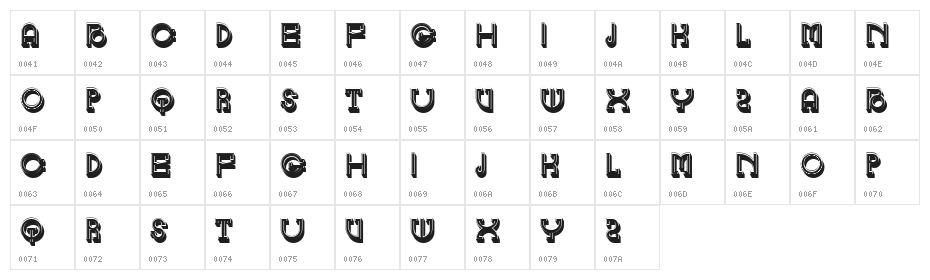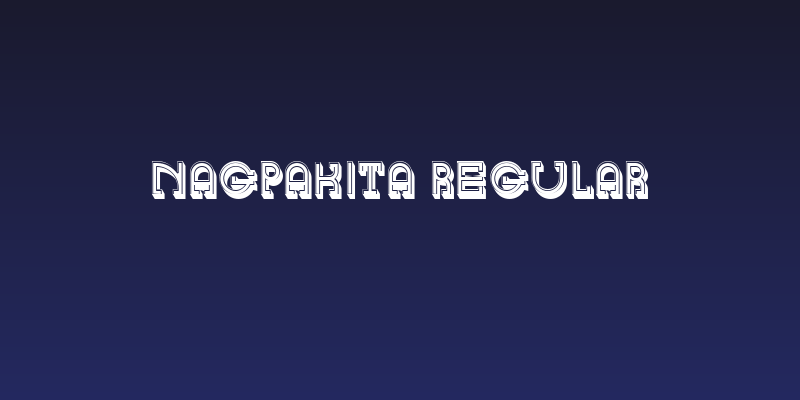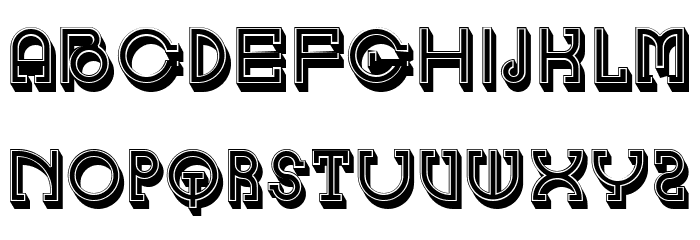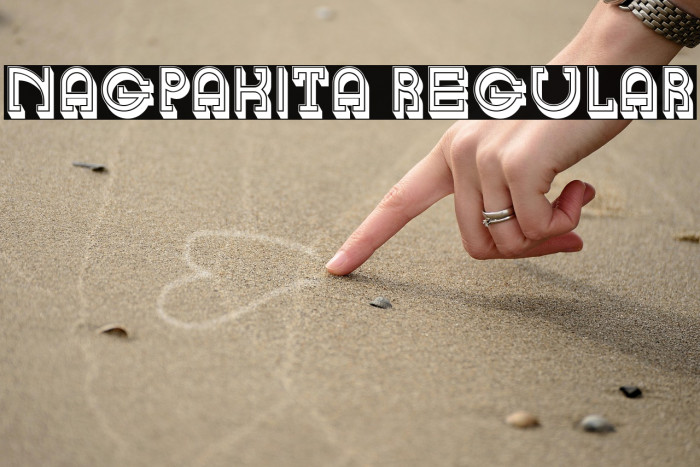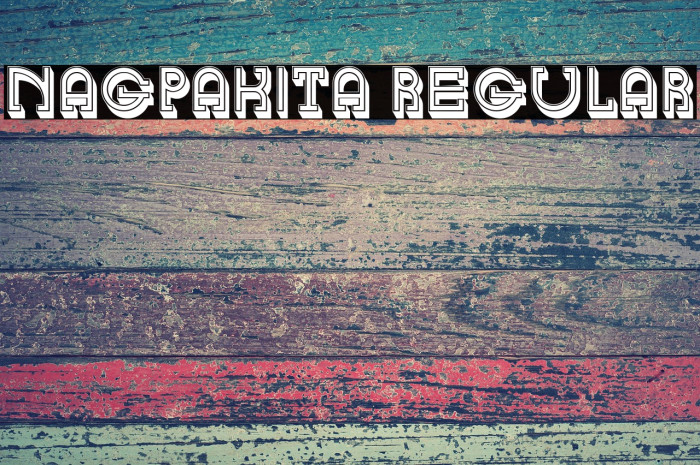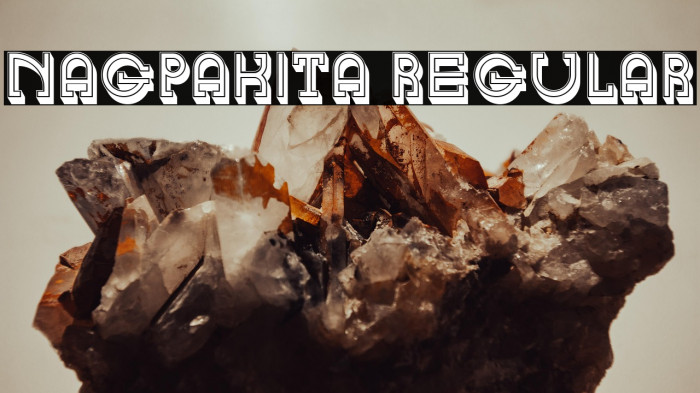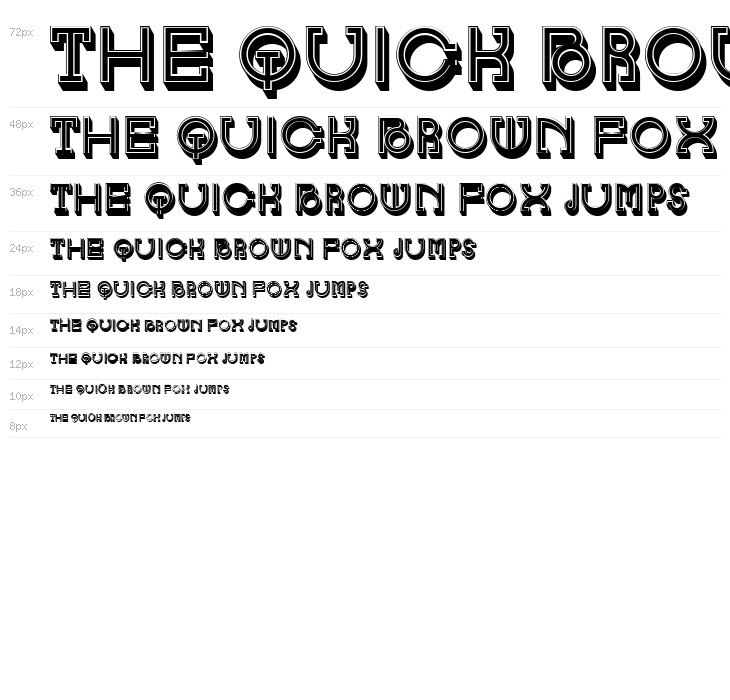
Nagpakita Regular Font
This font features a bold and striking design with a three-dimensional effect, characterized by thick, block-like letters with a shadow that creates depth. The geometric shapes and clean lines give it a modern and futuristic feel. Each character is distinct, with a consistent width and a strong presence, making it ideal for attention-grabbing headlines or logos. The uppercase letters are particularly prominent, with a uniform height and width that enhances readability while maintaining a unique style.
| Proposed Projects | Ideal for branding, poster design, and any project requiring a bold, modern aesthetic. |